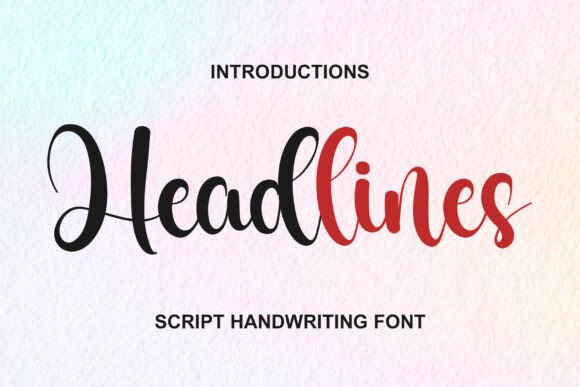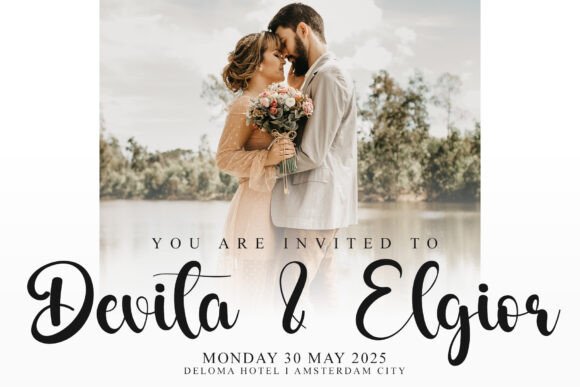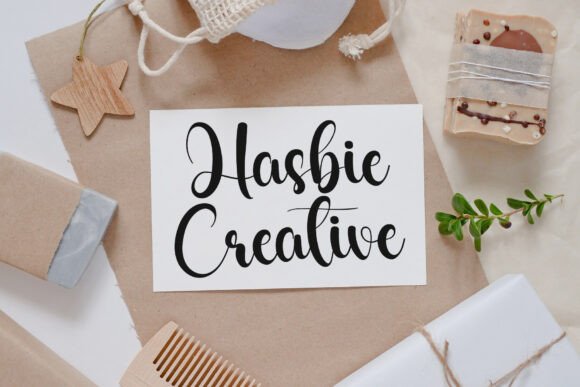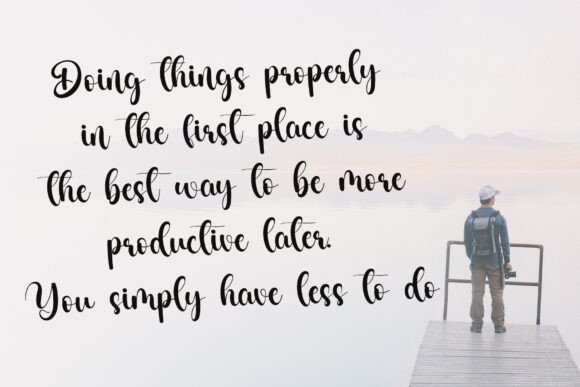
Headlines Font
About the Headlines Font
Introducing the Headlines Font, a beautifully crafted typeface designed to elevate your creative projects. Headlines is a sweet and cursive handwritten font. This gentle font will look gorgeous on a variety of design ideas. It will add a joyful and romantic touch to each of your projects! Perfectly fit for branding, logo, wedding things, greeting cards, fashion, lookbook, marketing promotion, anytime you want to look fancy elegant but still casual.
Headlines excels as a display font for headlines, short titles, and branding elements where its delicate cursive style adds a touch of elegance and whimsy. It’s ideal for projects needing a romantic or feminine feel, such as wedding invitations, greeting cards, or fashion-related materials. However, its low x-height and decorative nature make it unsuitable for body text or UI elements requiring high readability.
Pairing Headlines with a clean sans-serif like Open Sans for body copy provides excellent contrast and readability. For a more playful feel, consider pairing it with a rounded geometric sans-serif such as Poppins. A classic serif like Garamond could also work well, adding a touch of sophistication while maintaining visual harmony.
The font projects a soft, elegant, and friendly personality, best suited for brands associated with romance, beauty, or handcrafted goods. Avoid using it for projects requiring a bold, modern, or serious aesthetic.
Headlines Font Usage Examples
Headlines Font Example